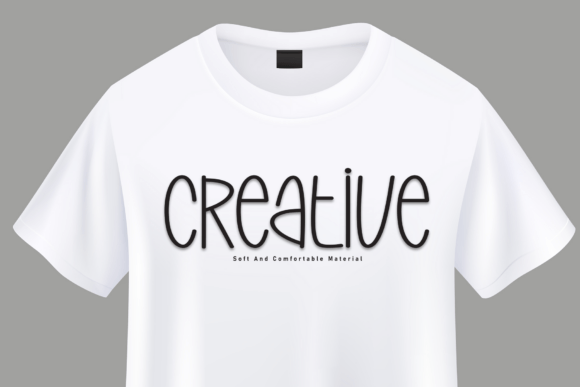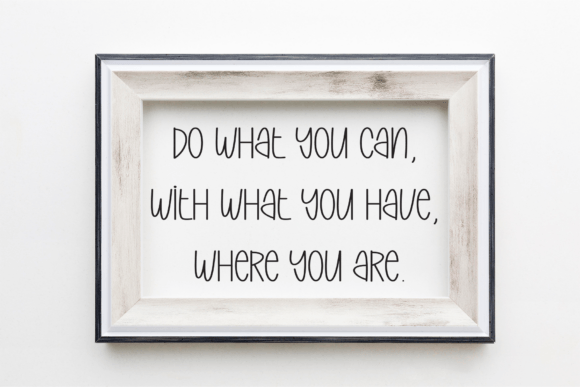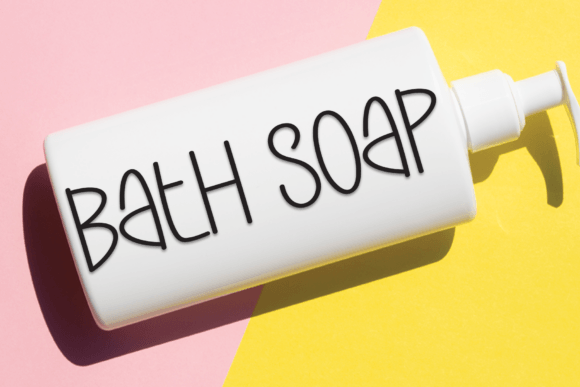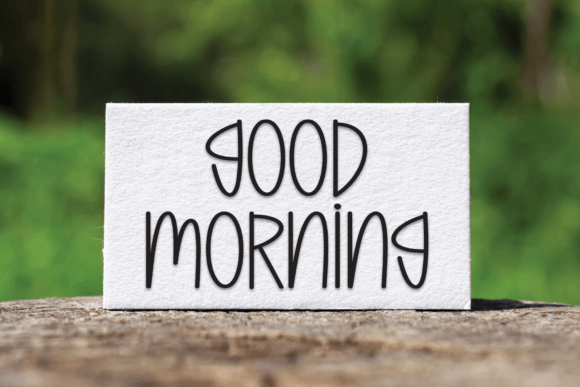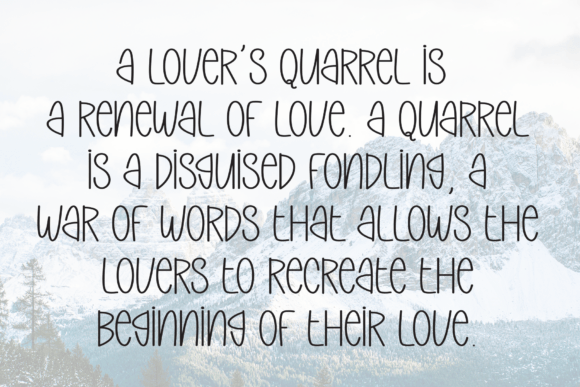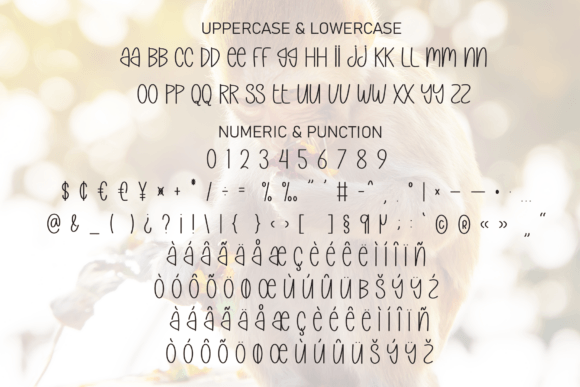
Discover the Joy of Handwritten Charm with Baby Monkey Font
Remember the thrill of holding a handwritten letter from a loved one? The way the ink flows across the page, and the personal touch it adds to the message? That’s the magic we’ve captured in the Baby Monkey Font – a delightful, handwritten display font that’s sure to bring a smile to your face.
This charming font is designed to add a playful twist to any design, making it perfect for crafting wedding invitations, personalized cards, and more. Its whimsical aesthetic is sure to captivate your audience and leave a lasting impression. As a designer, you know the value of a well-chosen font in elevating your projects – and the Baby Monkey Font is a valuable addition to your toolkit.
Baby Monkey Font Key Features
- Font Family: Baby Monkey, Baby Monkey Bold, Baby Monkey Italic, Baby Monkey Bold Italic
- Unique Characteristics: Hand-drawn illustrations, playful and whimsical style, perfect for children’s books, nursery decor, and educational materials
Designer Review: Baby Monkey Font
Overall, I’d say that Baby Monkey Font is an interesting choice for any design project. There’s something playful and quirky about it that could really work well in the right context. ✨ I love the whimsical feel of the font, and it could be a great fit for projects that need a bit of whimsy and personality.
- The unique character set: Baby Monkey Font has a distinctive set of characters that will add a touch of personality to any text.
- The variety of weights and styles: With a range of weights and styles to choose from, you can use Baby Monkey Font to create a range of different looks and moods.
- The playfulness of the design: Baby Monkey Font is unapologetically playful and fun, making it a great choice for projects that need a bit of whimsy.
Overall, I think Baby Monkey Font is a great choice for projects that need a bit of whimsy and personality. While it may have some limitations, it’s a unique and interesting font that could add a lot of character to your designs. ✨
“Baby Monkey Font” is perfect for:
- Creating playful and whimsical designs.
- Adding a touch of humor to your content.
- Designing children’s products or educational materials.